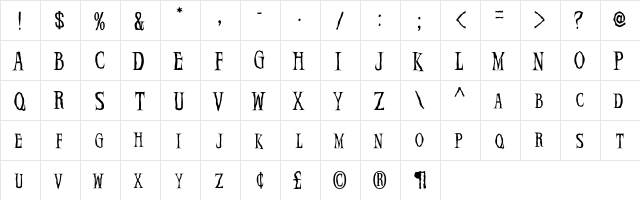
Demon Knight Font Preview
Demon Knight
Demon Knight Font Details
| Style | Knight |
Design Context for Demon Typeface
Demon is a composed and adaptable typeface that performs quietly and consistently across a wide range of design contexts.